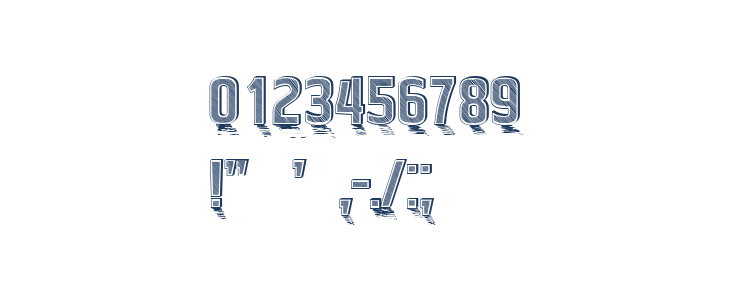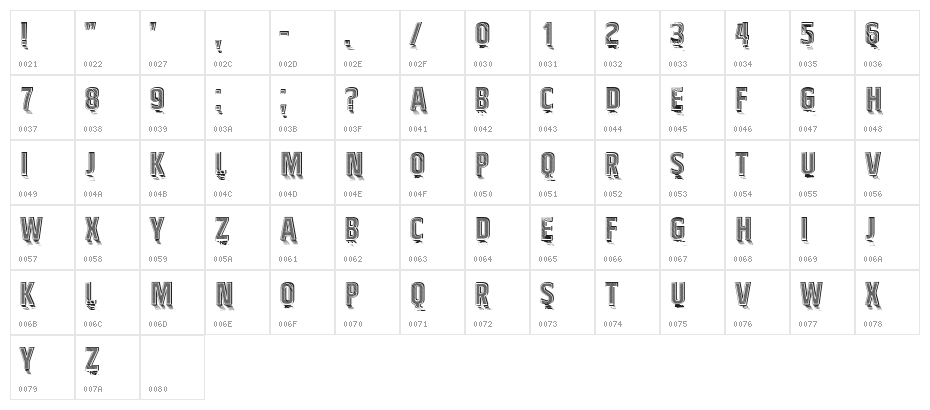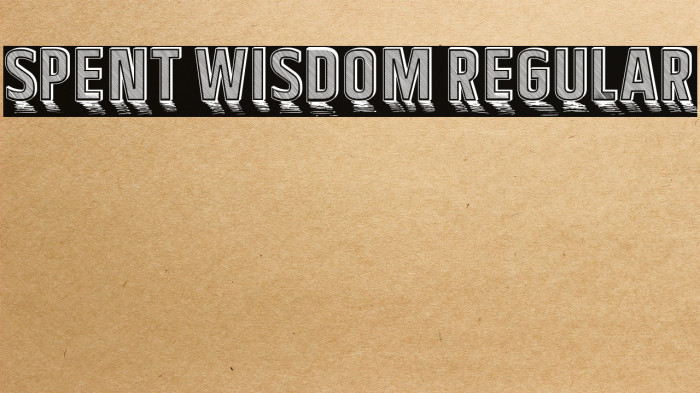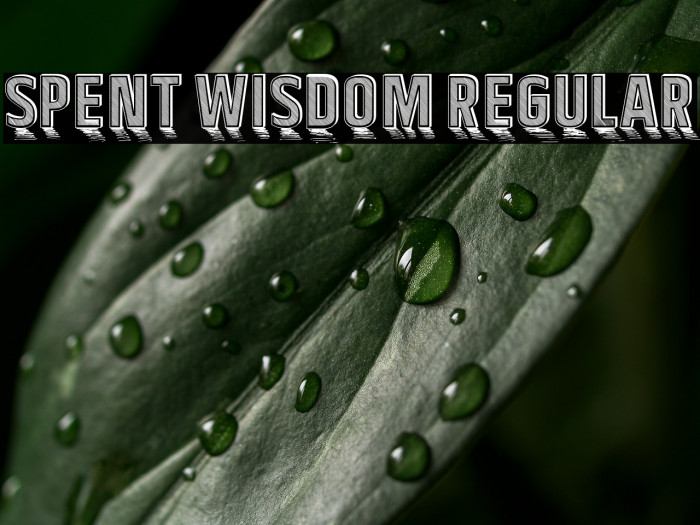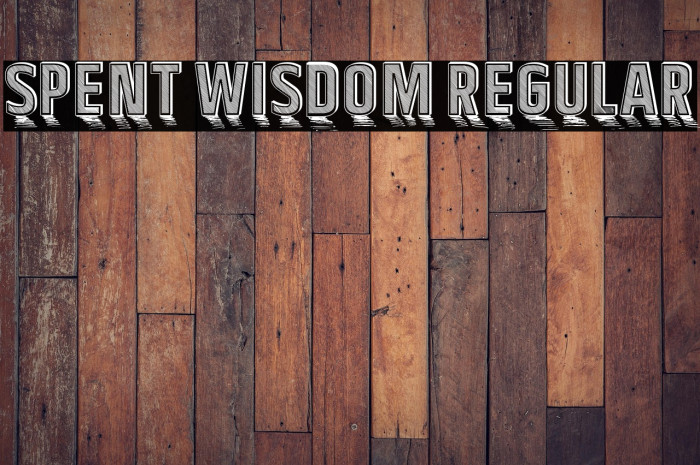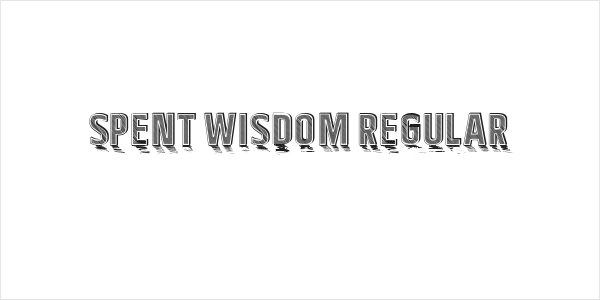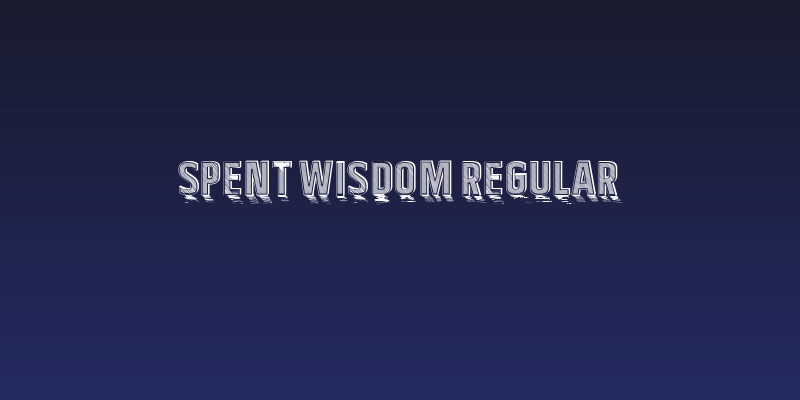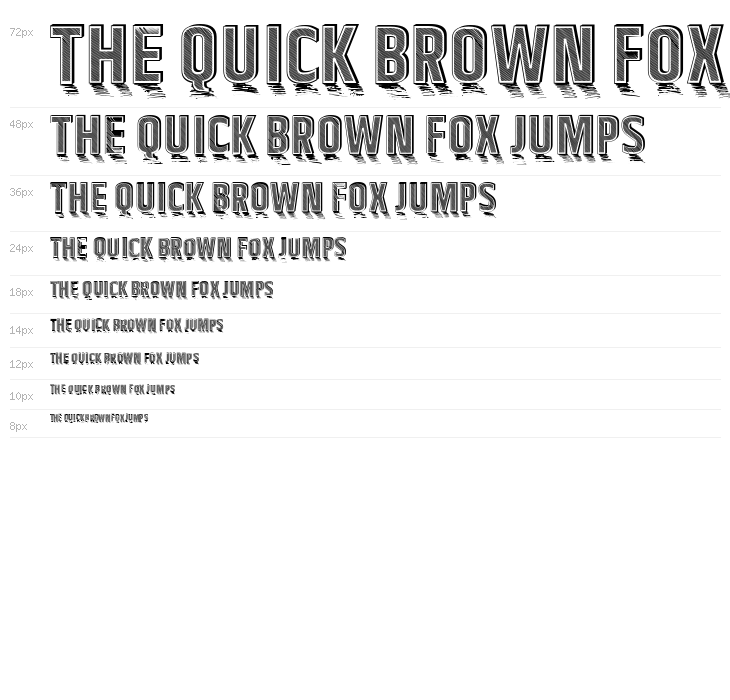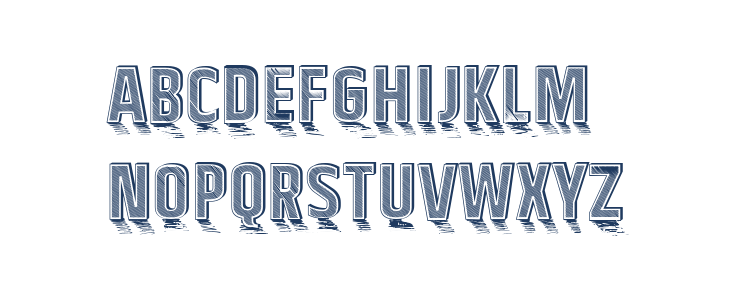
Spent Wisdom Regular Font
Spent Wisdom Regular Description
This font features a bold, decorative style with a unique shadow effect that gives it a three-dimensional appearance. The letters are all uppercase, with a consistent height and width, creating a uniform look. The shadowing is achieved through a series of diagonal lines that add depth and texture to each character. The font has a vintage feel, reminiscent of old signage or posters, making it ideal for projects that require a touch of nostalgia. The numbers and special characters maintain the same stylistic elements, ensuring a cohesive design across all elements.
| Proposed Projects | Ideal for vintage-themed posters, retro branding, or eye-catching headlines. |